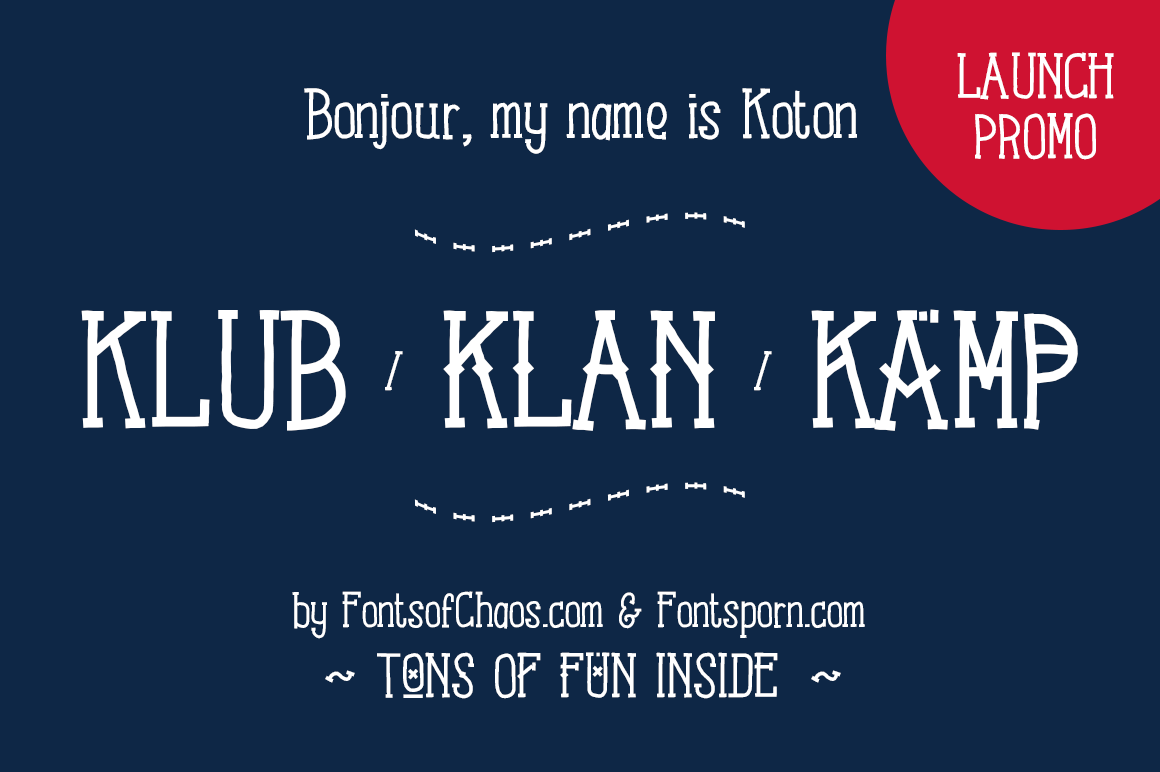
Koton Kollection font - launch promo
Koton Kollection is the complete Koton fonts made by David A. Slaager for Fontsofchaos.com and FontsPorn.com and available now at Creative Market for a special price.
Koton is a hand drawn slab serif font in 3 variants. Klub, Klan and Kamp, same fonts with some variants. Klan take inspiration of western display font and Kamp are a little bit more ... fun.